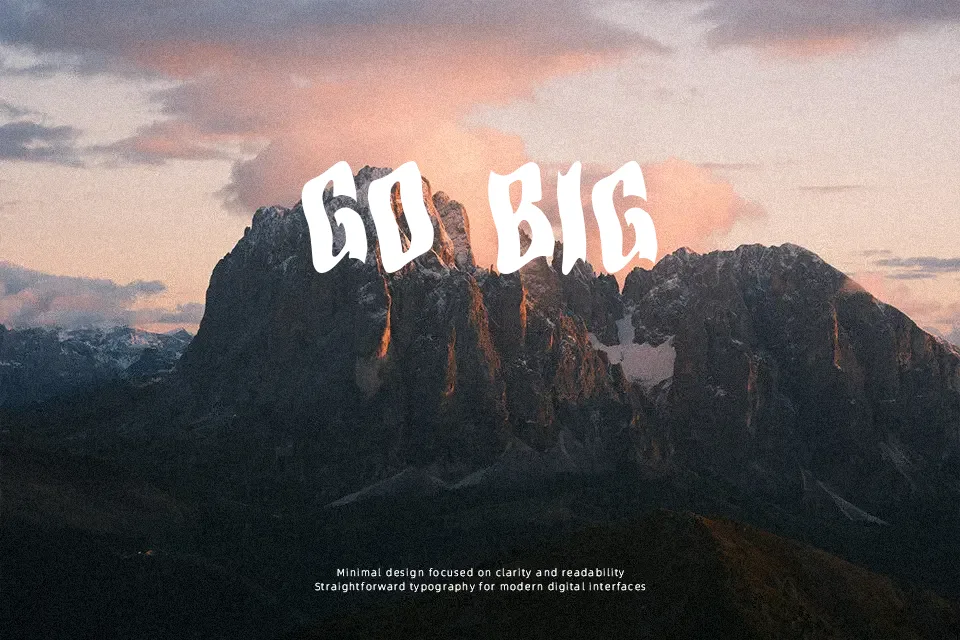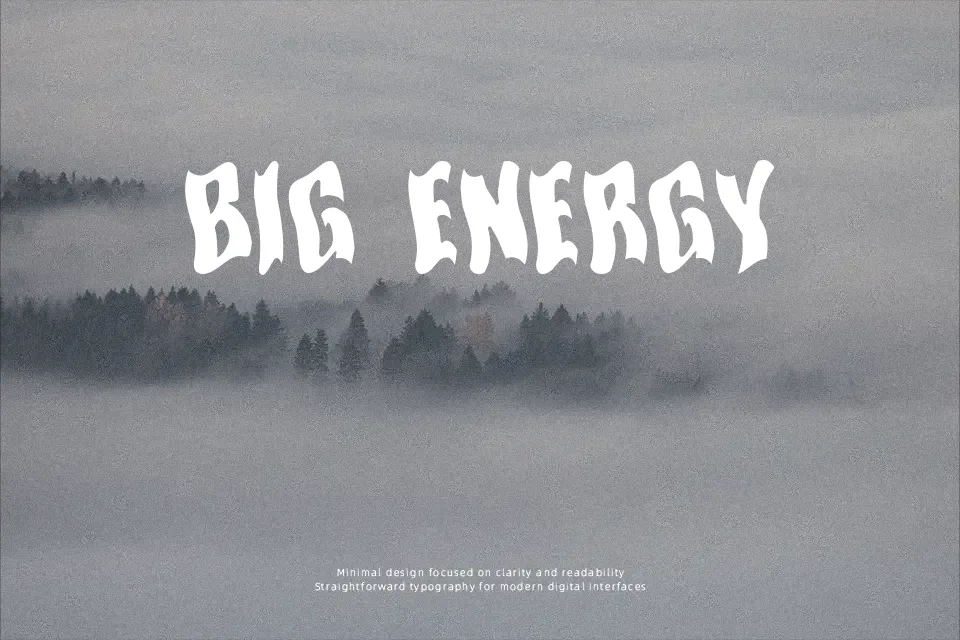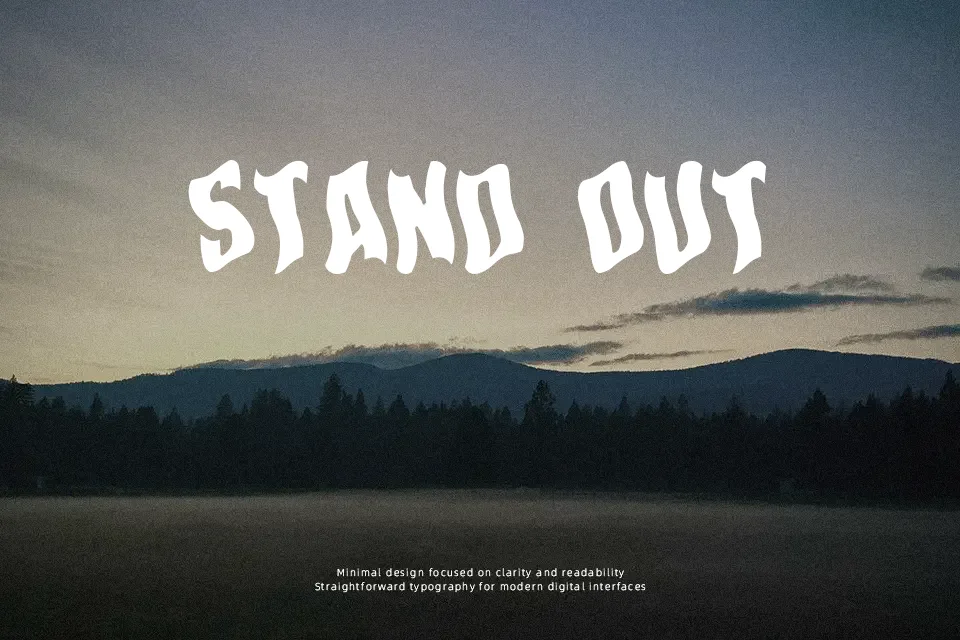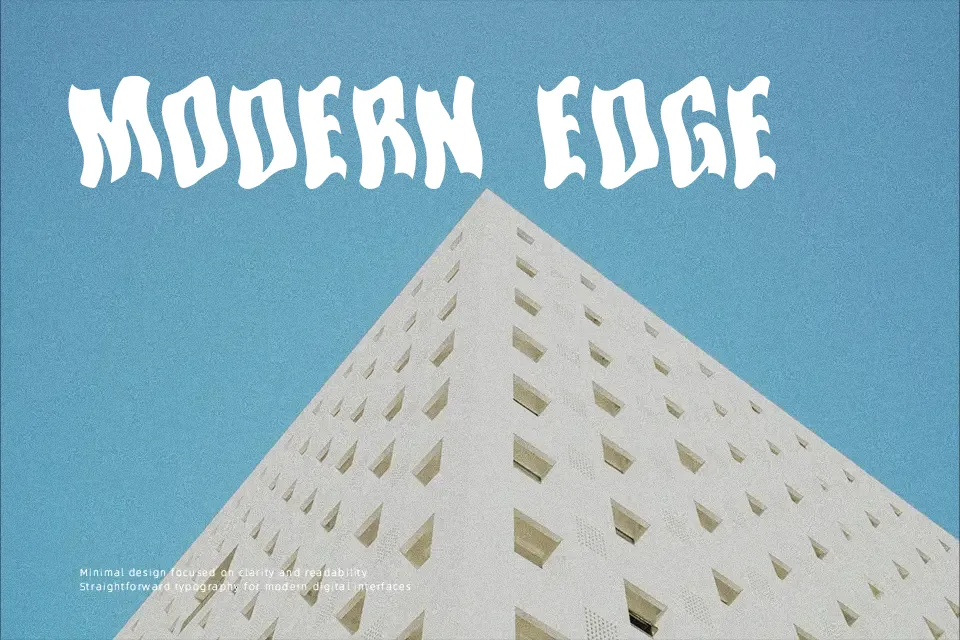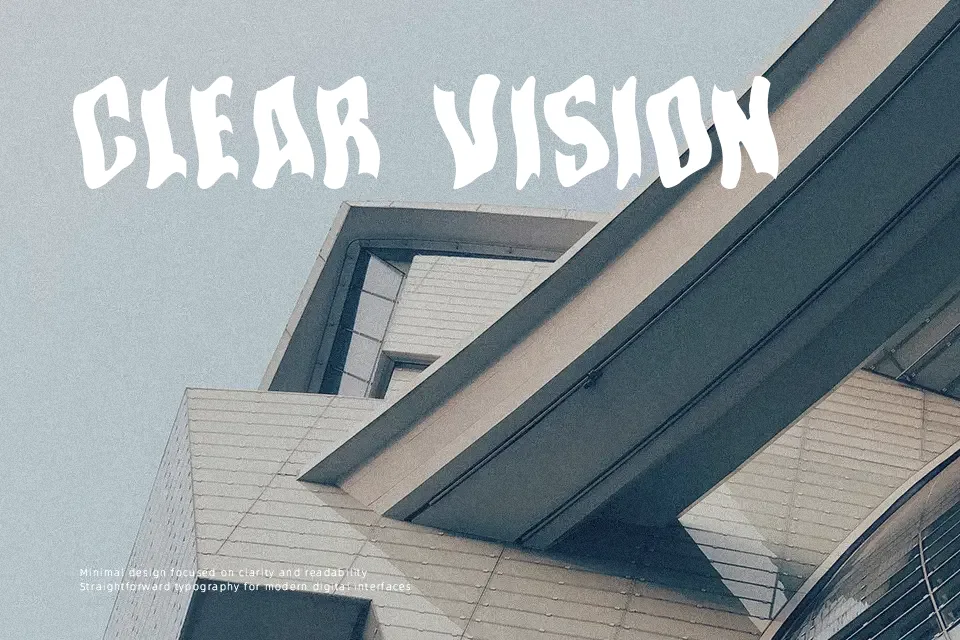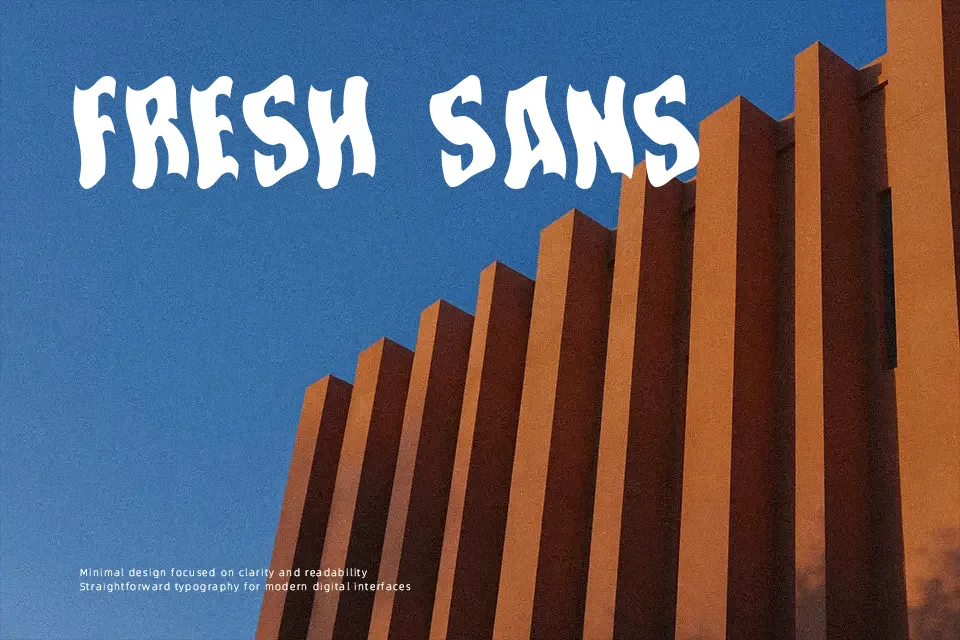
Somewhere In Space Font
Somewhere In Space Font uses irregular, distorted letterforms with a decorative display structure and varied contours. Its strokes appear heavy and uneven, while the proportions and spacing create a deliberately unsettled rhythm across words. The uppercase forms carry the strongest visual effect, making the typeface more effective in short titles, posters, and themed artwork than in dense text. The spacing helps individual characters remain noticeable at larger sizes, but the warped details can become harder to separate in smaller settings. It is a practical choice when a headline needs an unusual, space-themed texture without relying on extended reading.
Best For: sci-fi poster headlines,game title graphics,space-themed packaging,album cover titles
Not Ideal For: long paragraph text,small interface labels,corporate reports,technical manuals
Perfect for gaming, headline, and music, with a creative and decorative style.